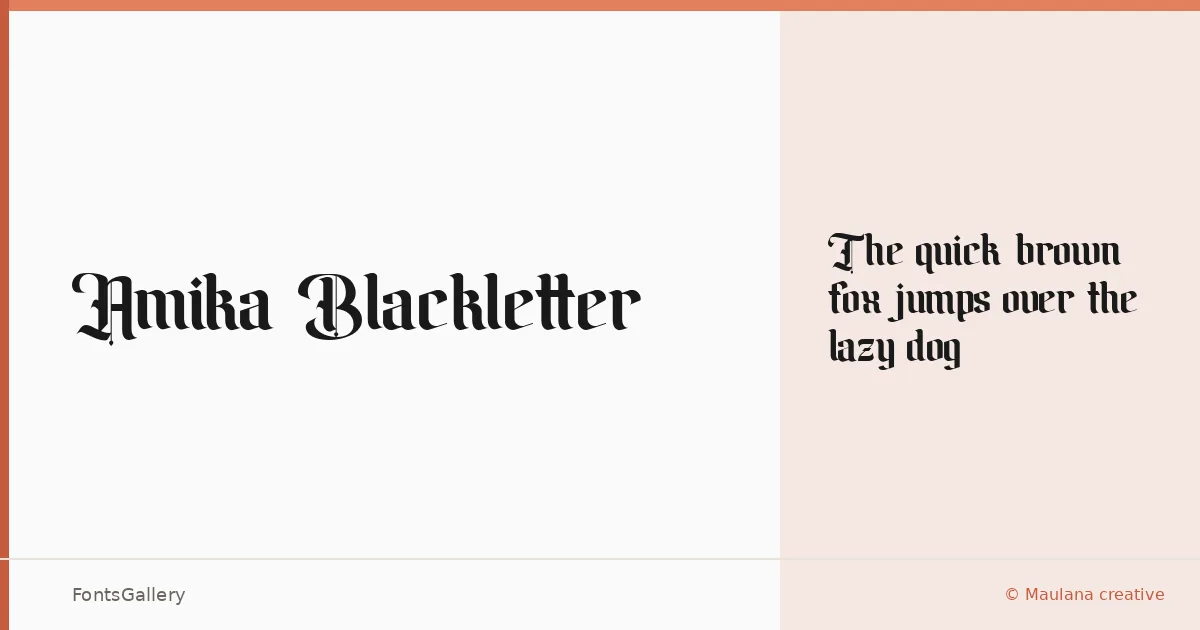
About Amika Blackletter Font
There is a certain deliberate weight to this face — the thick strokes, angular terminals, and dense texture that blackletter demands are all present, handled with the kind of confidence that comes from a designer who respects the tradition. It comes from Maulana Creative, available as a single Regular cut in TTF format.
The category is blackletter, and the mood leans into the full range of what that implies: bold, classic, grunge, and vintage all at once. The Regular weight is the sole style in this family, which means it works best when it owns the space it occupies — a headline, a logotype, a cover — rather than sharing the page in running text. The letterforms carry that characteristic gothic tension between historical formality and raw, gritty energy.
Branding, poster work, magazine covers, logo lockups, and T-shirt design are the natural homes here — anywhere a strong typographic statement is built from a single display line rather than paragraphs. For contrast-based pairings, the listed companions include clean grotesques like Helvetica and Aileron alongside editorial choices such as Canela, Abrade, ABC Arizona — all of which give the blackletter texture a clean foil to push against.